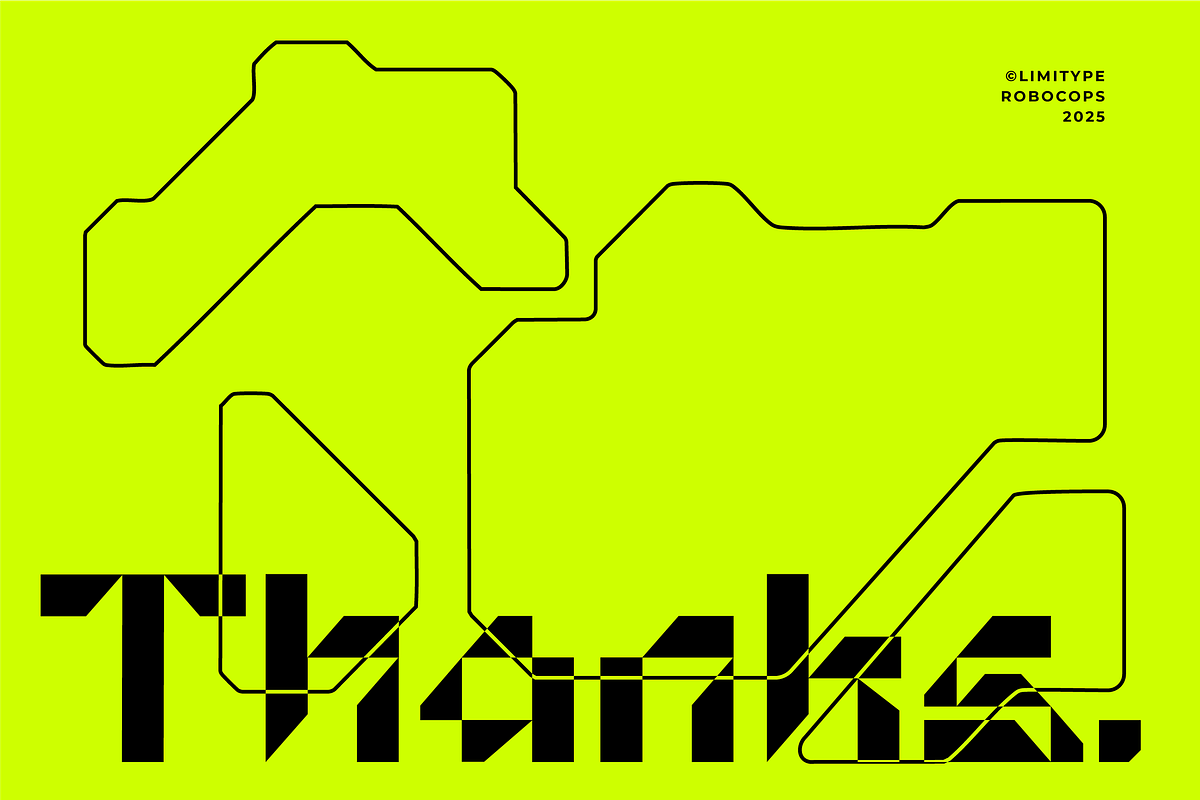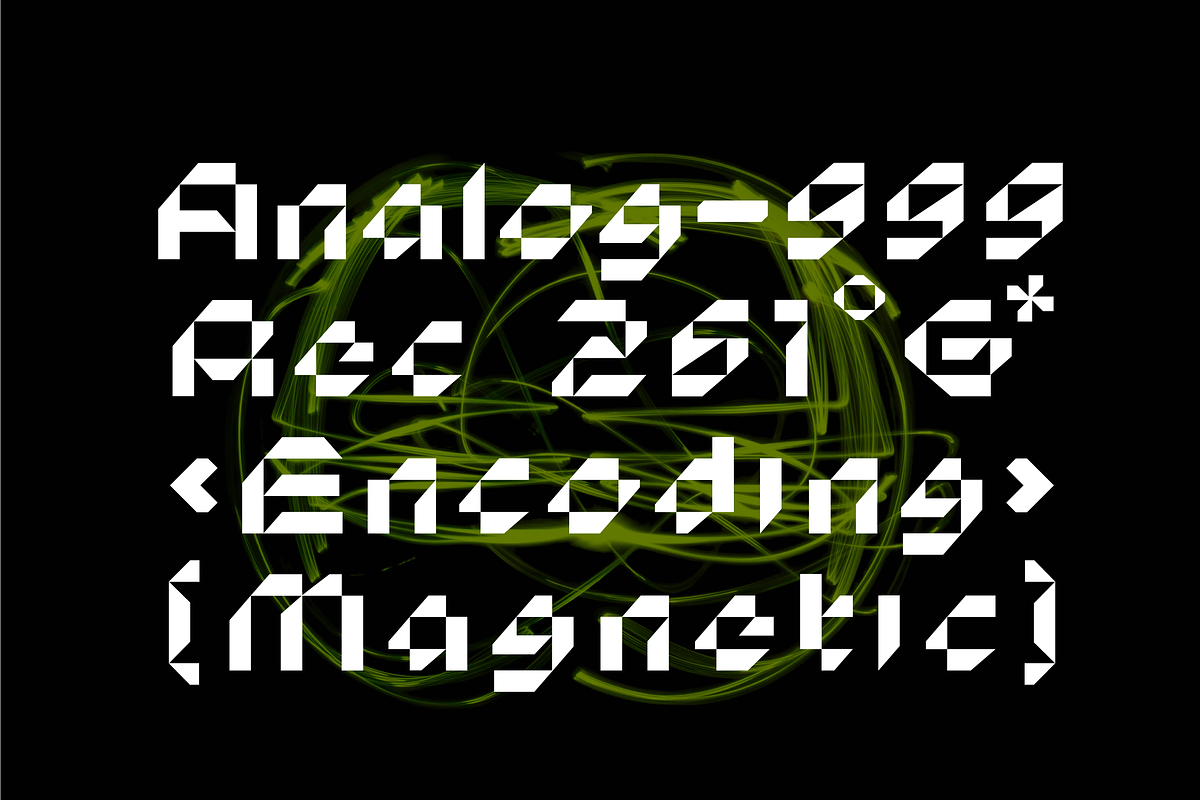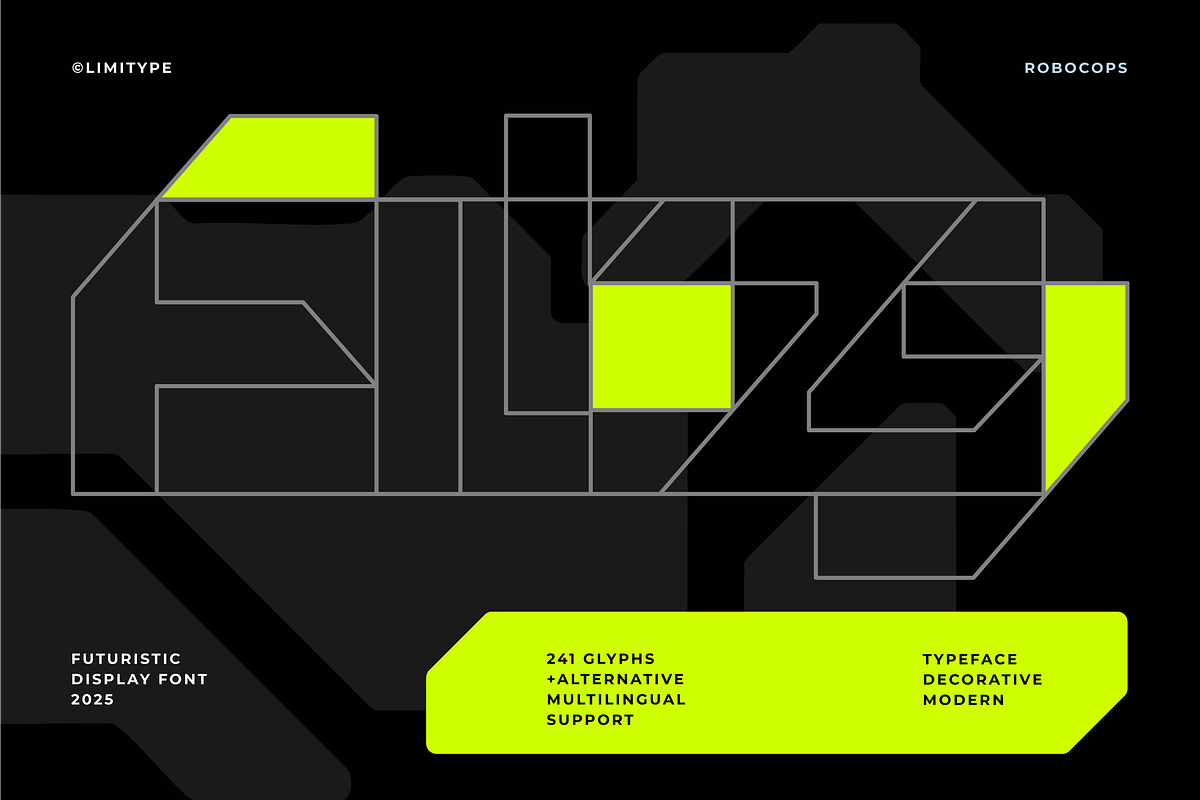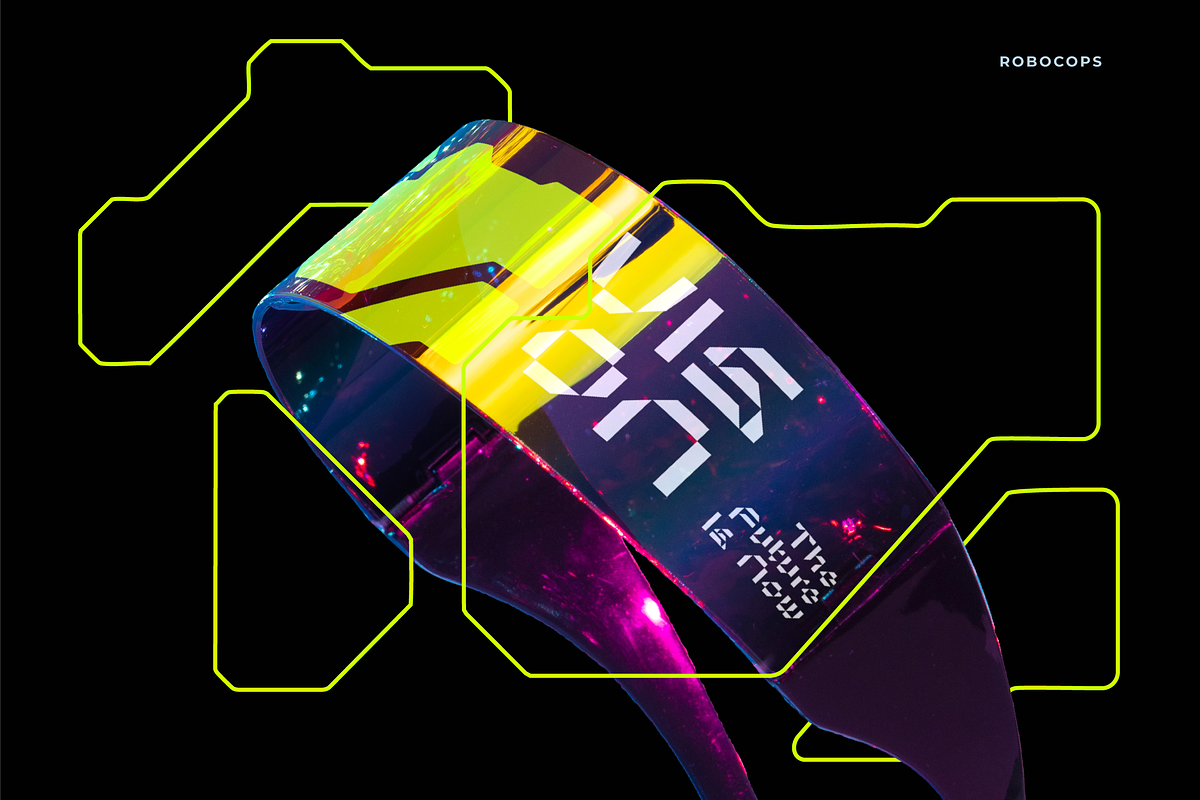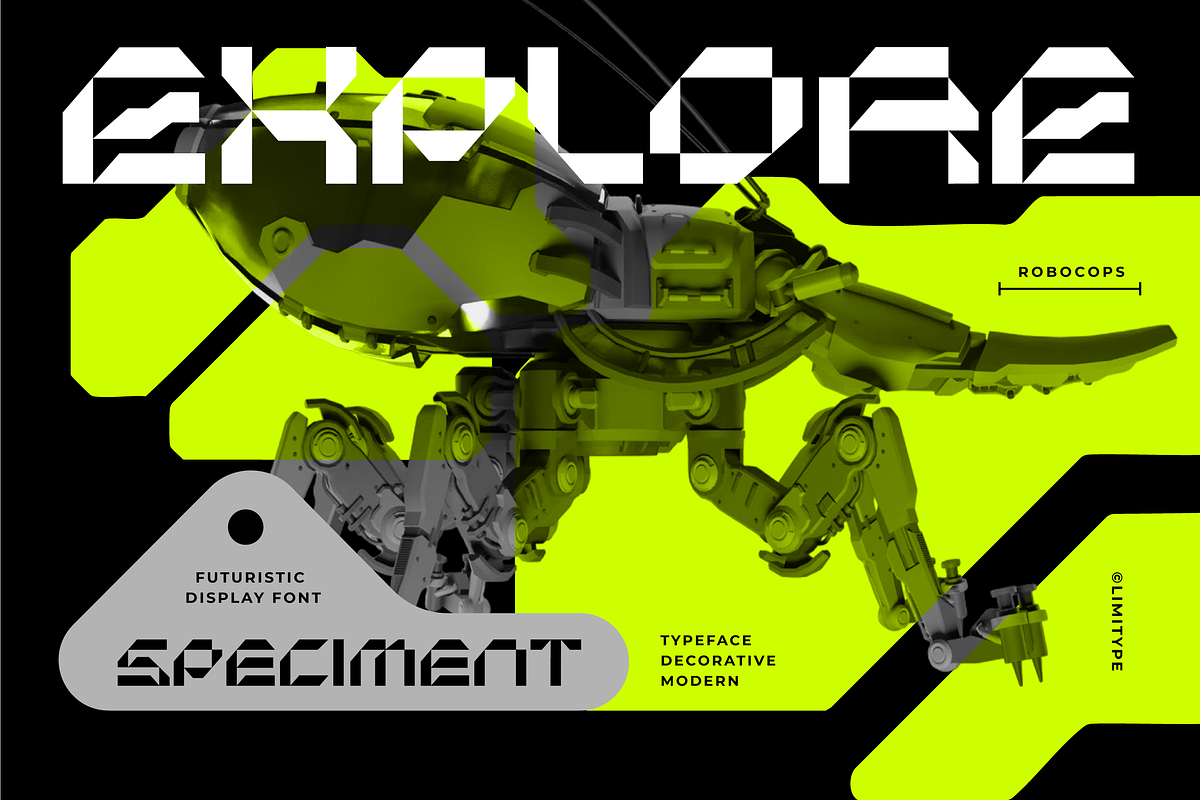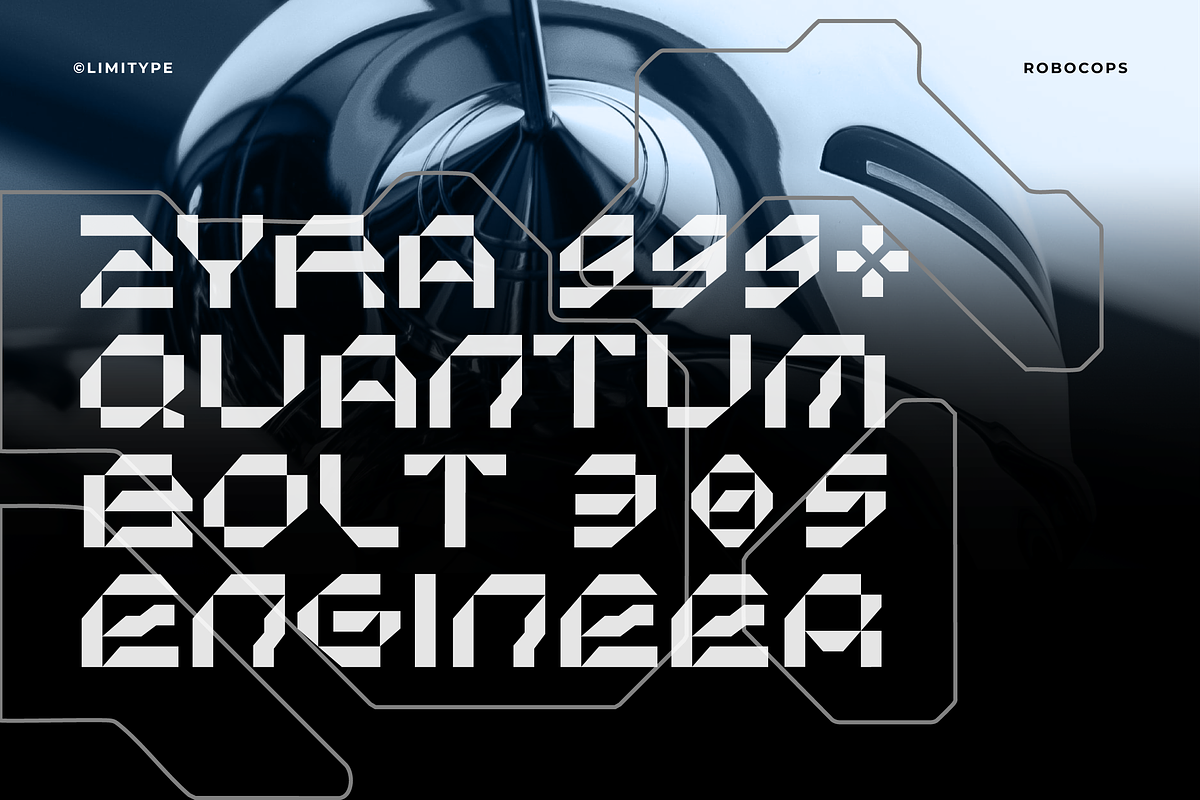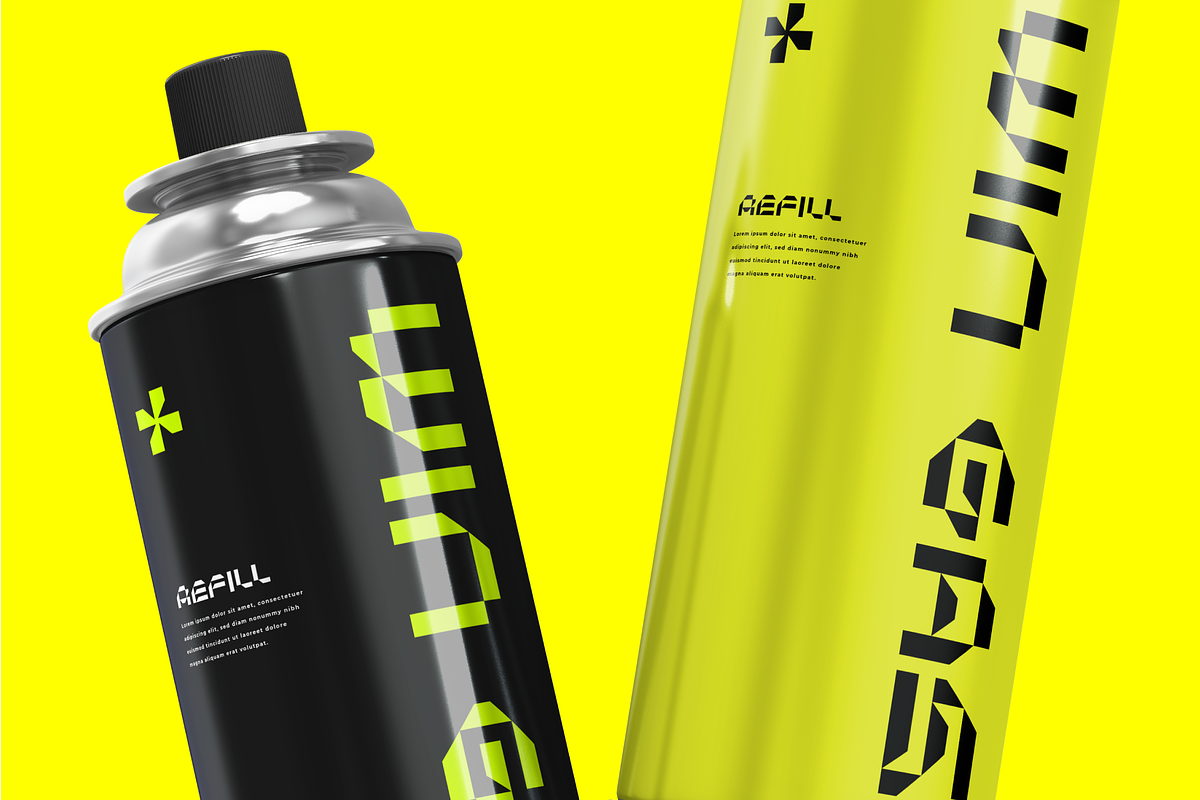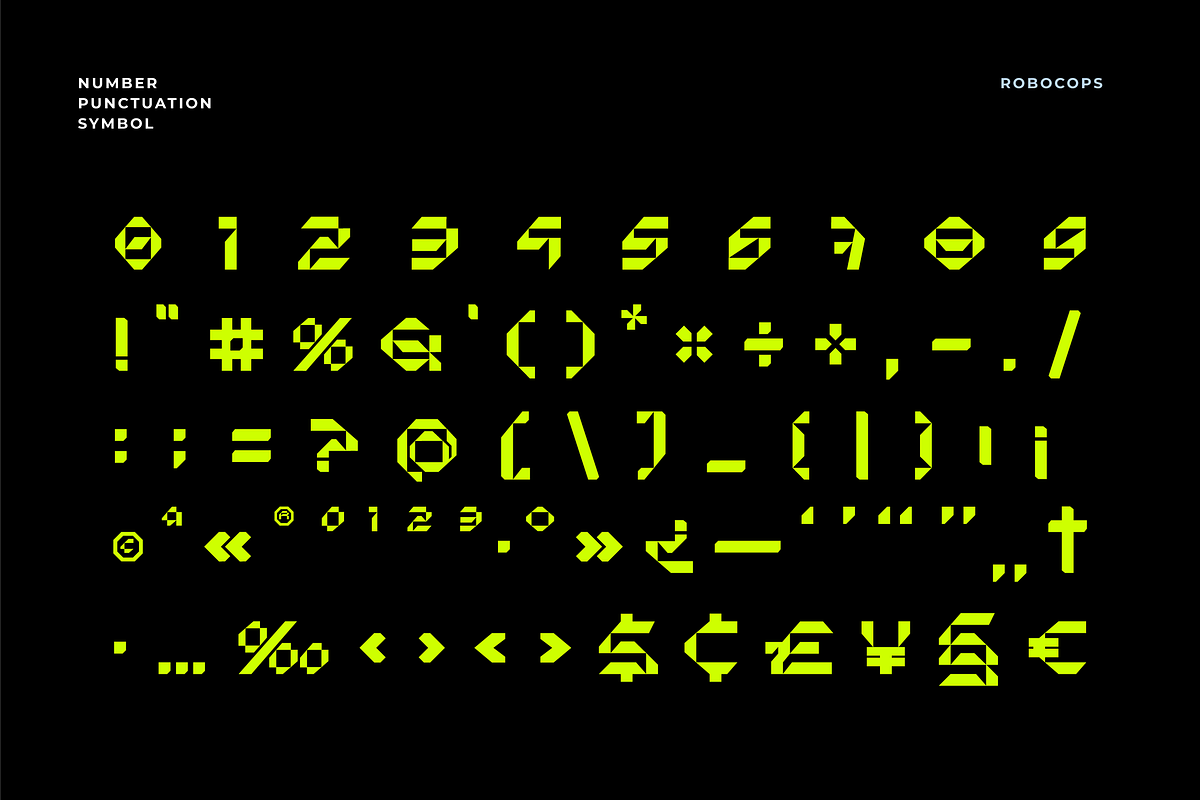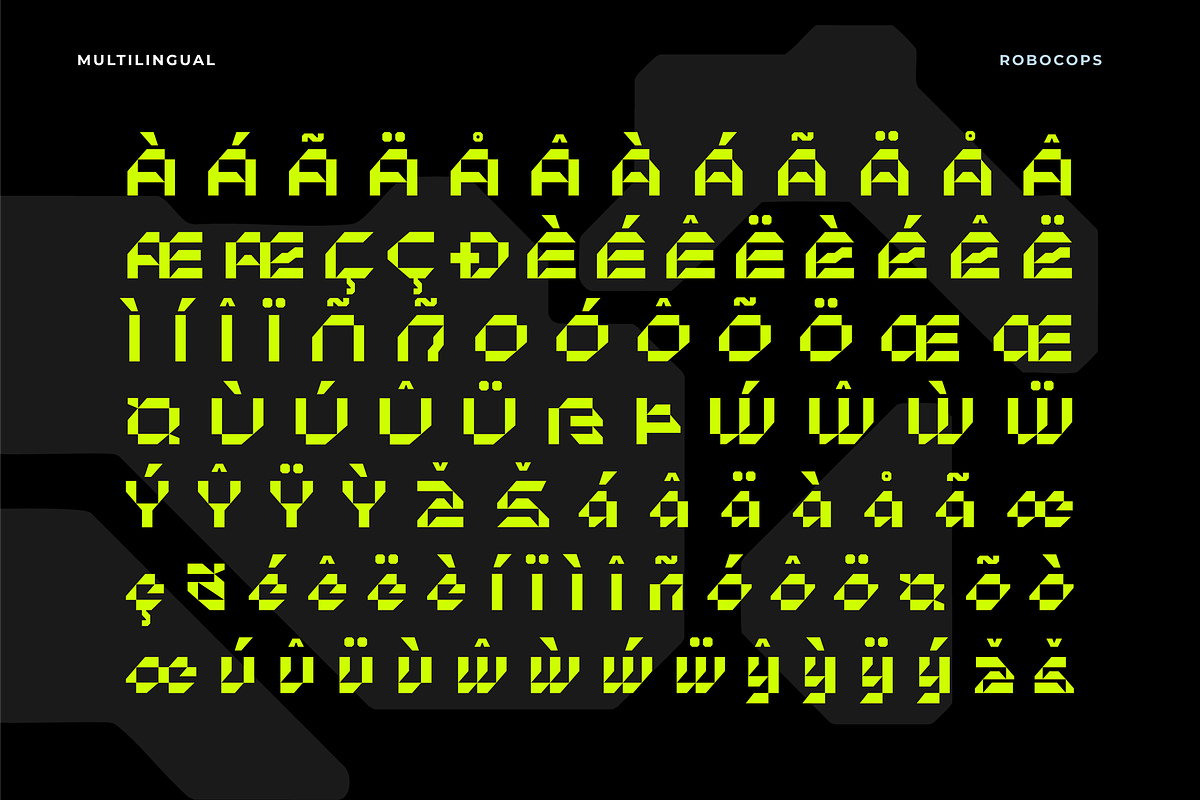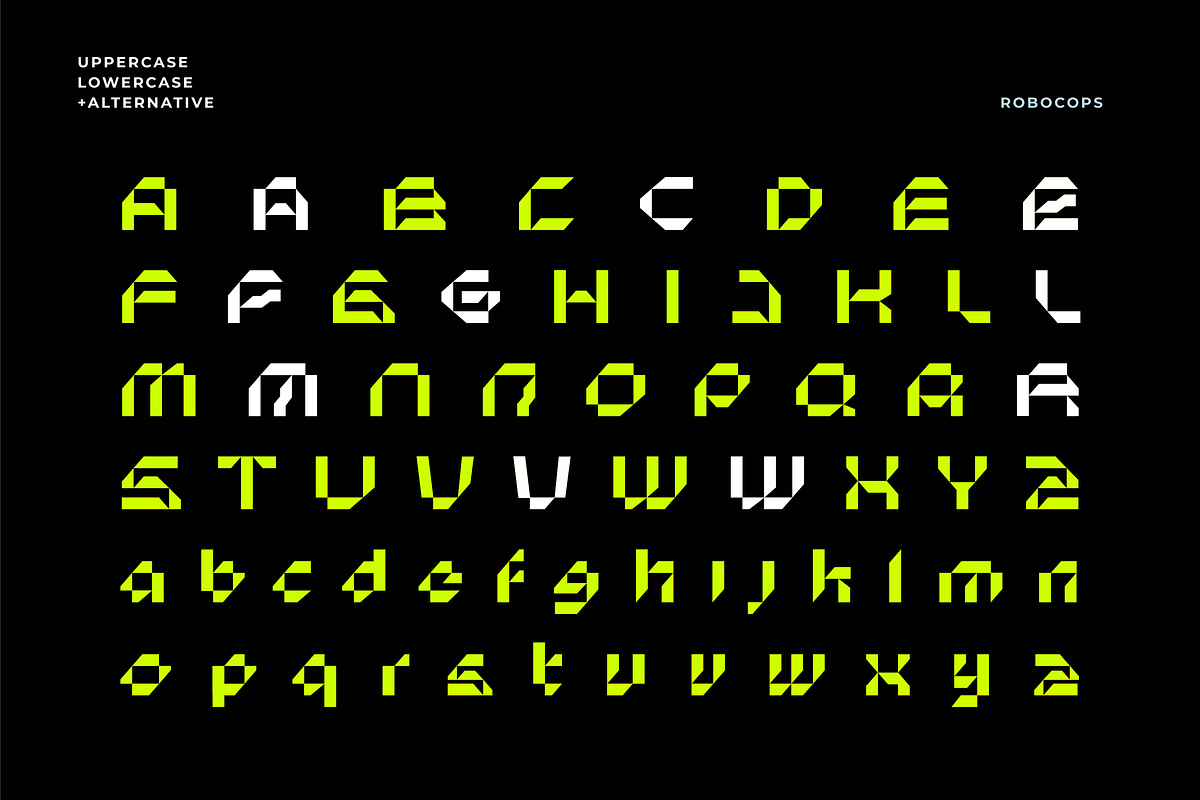
Robocops - Futuristic Font
Robocops is a bold display font with a futuristic style, featuring geometric shapes and distinct sharp angles. It is designed to convey a strong, modern, and iconic impression. Ideal for sci-fi, technology, gaming, and cyberpunk themes that aim to stand out with bold character and visual impact.